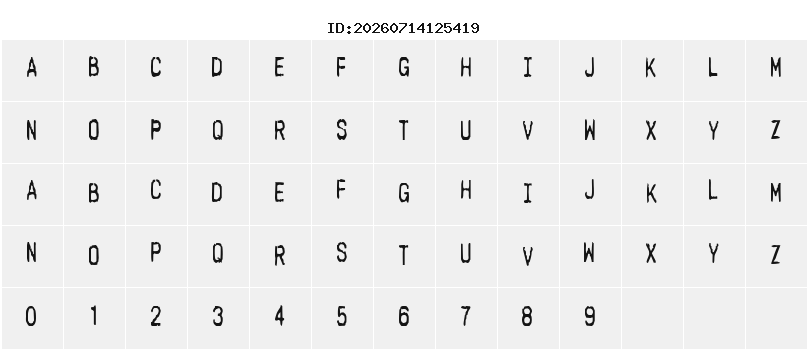
Harsh language AC.ttf is a modern, elegant sans-serif font designed for ultimate readability and visual harmony. Perfect for branding, headlines, web design, and print materials.